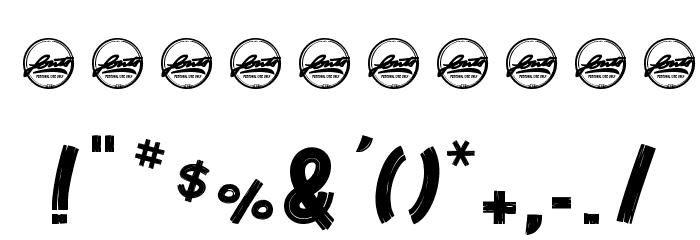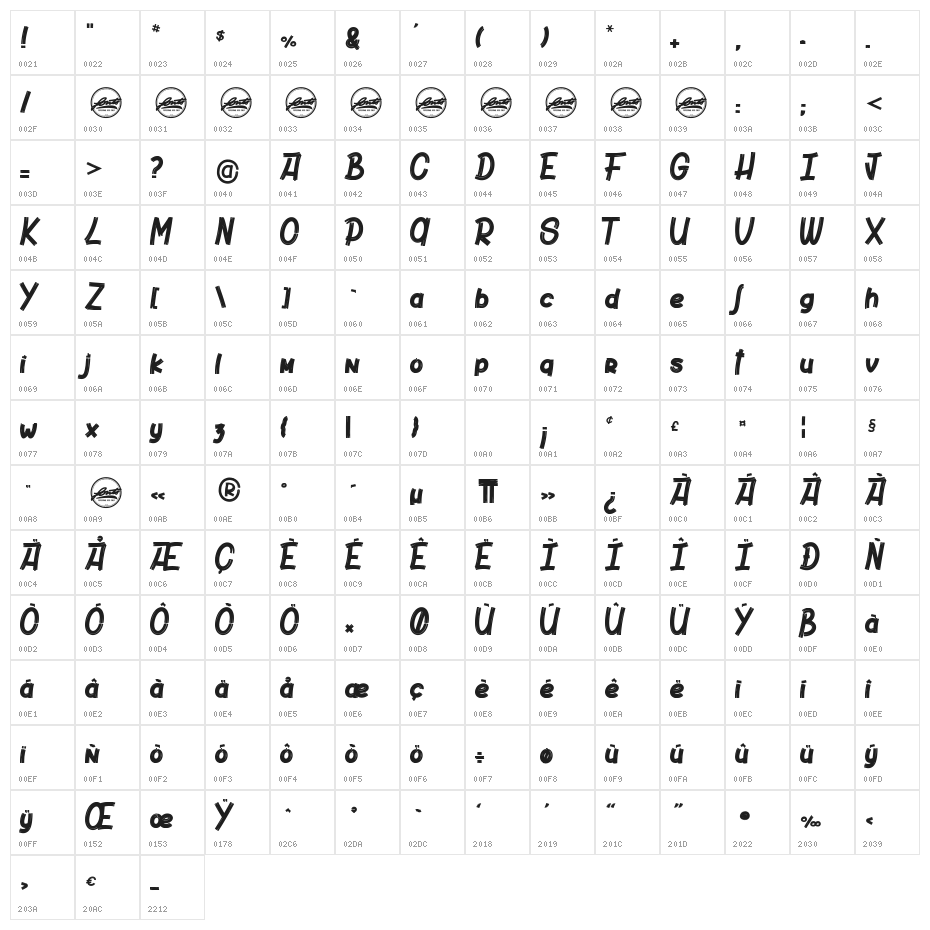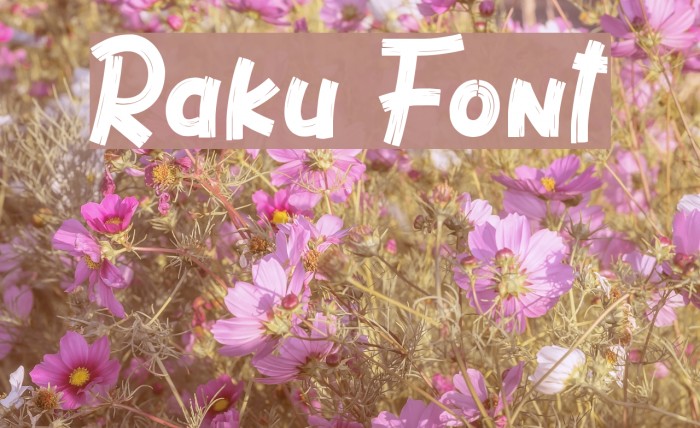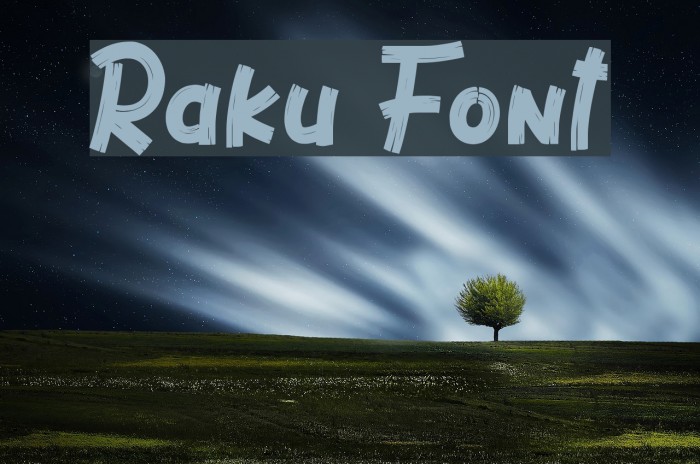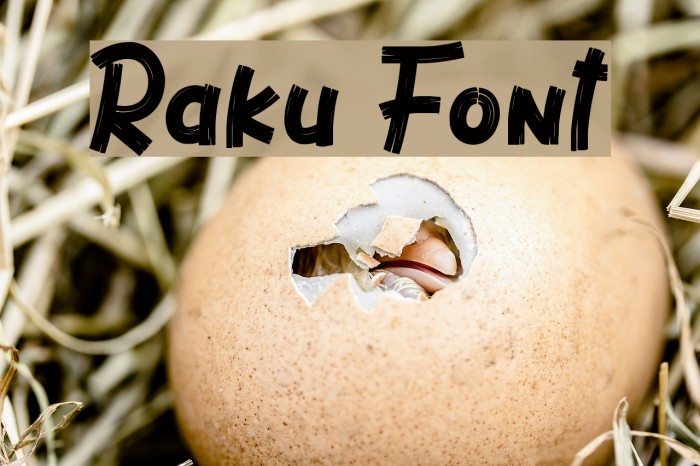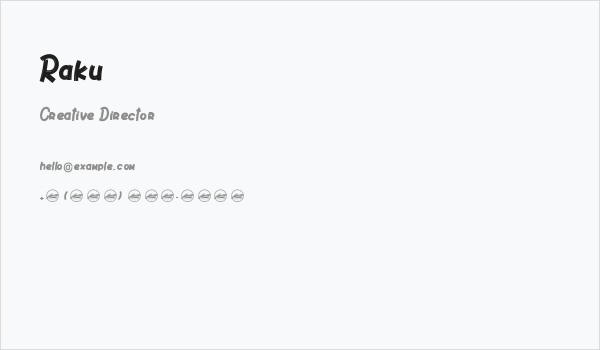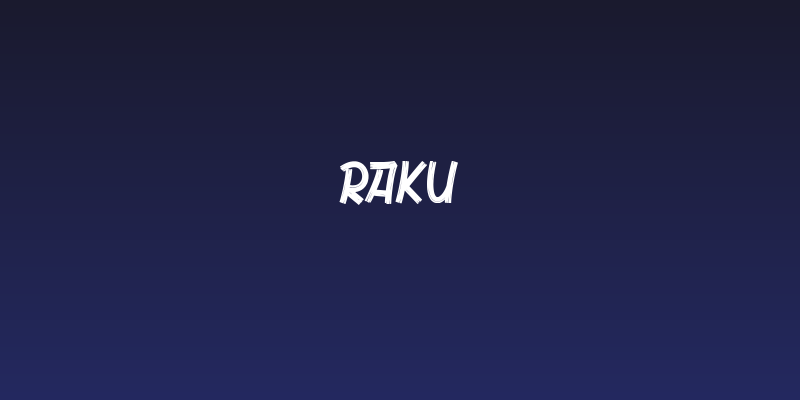
Raku Font
Raku Description
This font features a bold, expressive style with a hand-drawn appearance. The letters are slightly slanted, giving a dynamic and energetic feel. Each character is crafted with a brush-like texture, adding a sense of movement and creativity. The uppercase and lowercase letters maintain a consistent style, while the numbers and special characters complement the overall aesthetic. The font's playful and artistic nature makes it suitable for projects that require a touch of personality and flair.
| Use Case | Logos, Posters, Creative Branding |
| Proposed Projects | Ideal for creative projects such as posters, logos, and branding materials that require a bold and artistic touch. |